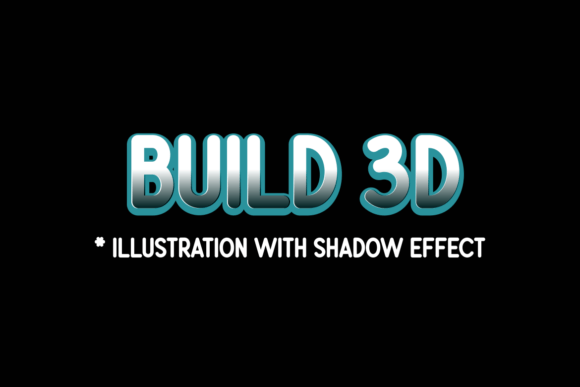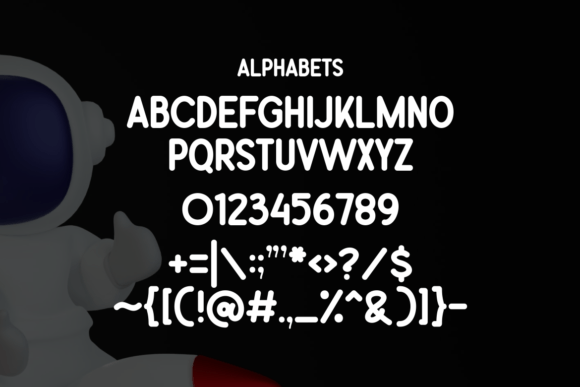
Introduction to Morchinda Font
Morchinda is an elegant and modern sans serif font.
This minimalist and clean vibe can easily apply to your favorite designs such as book covers, magazines, social media posts, invitations, and so much more .